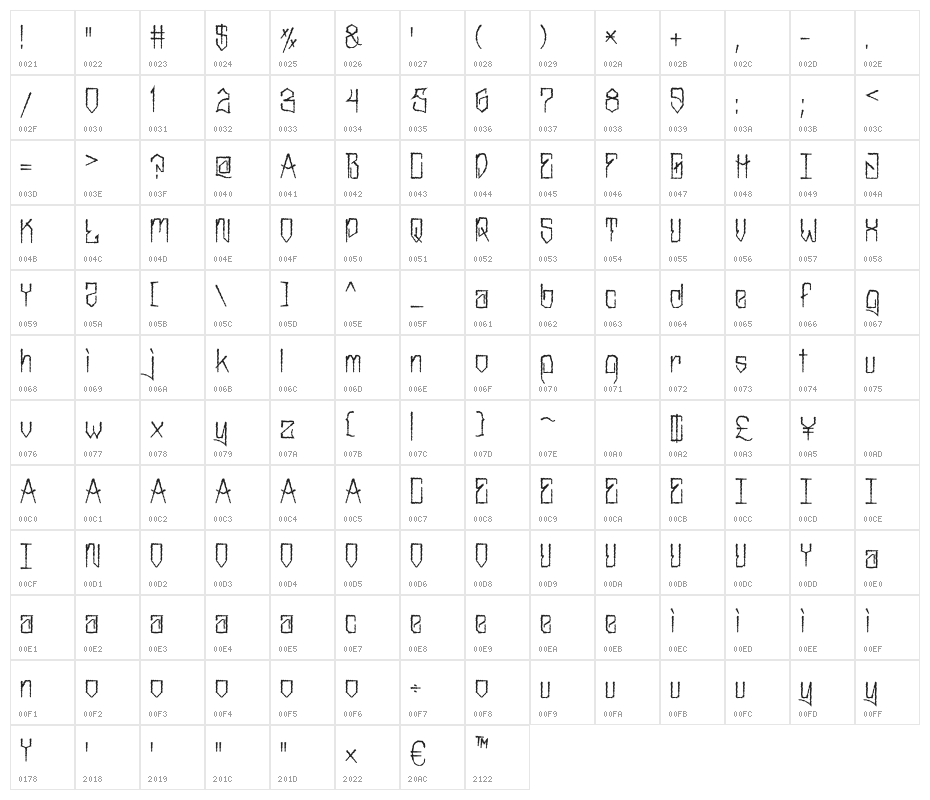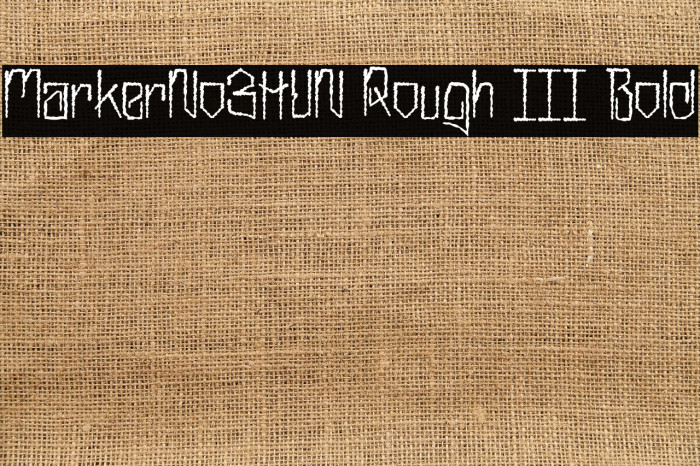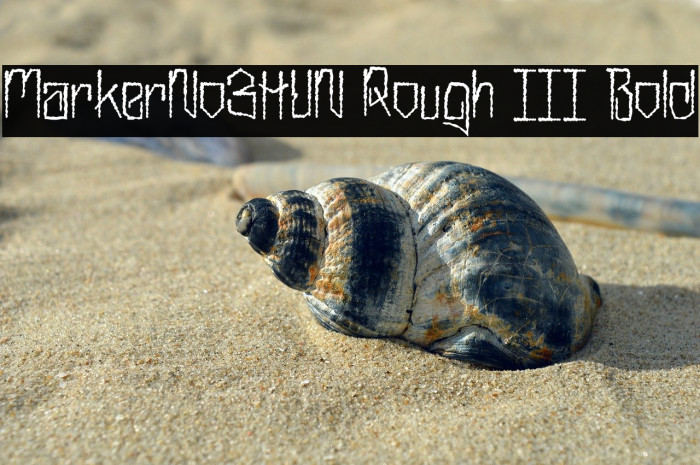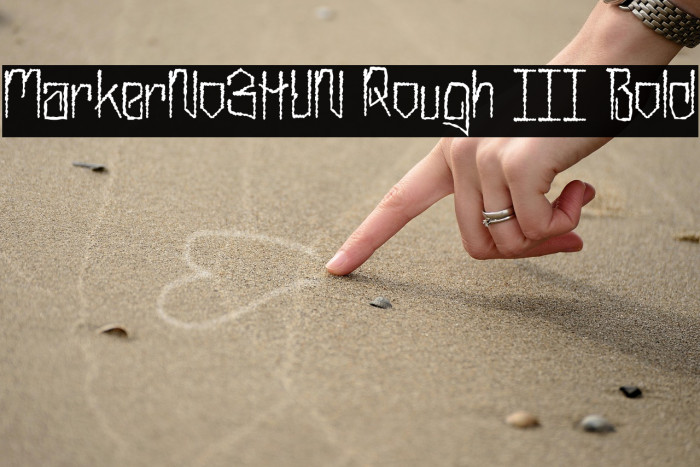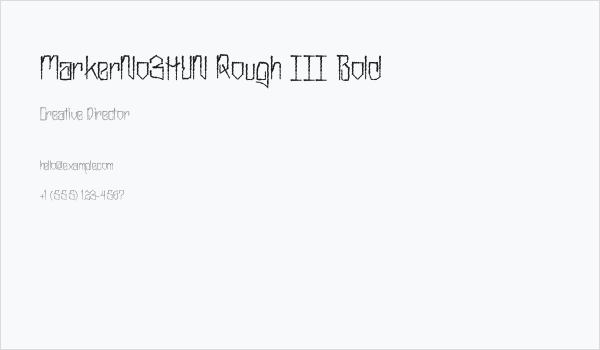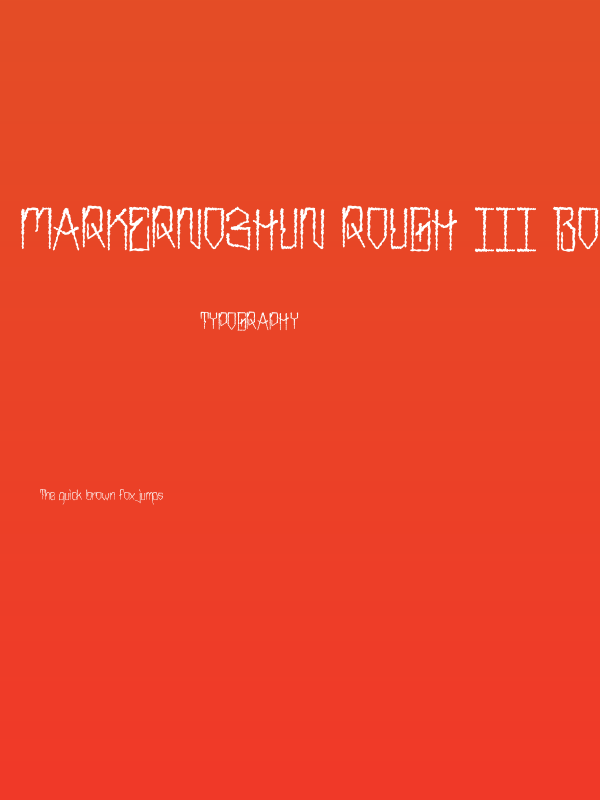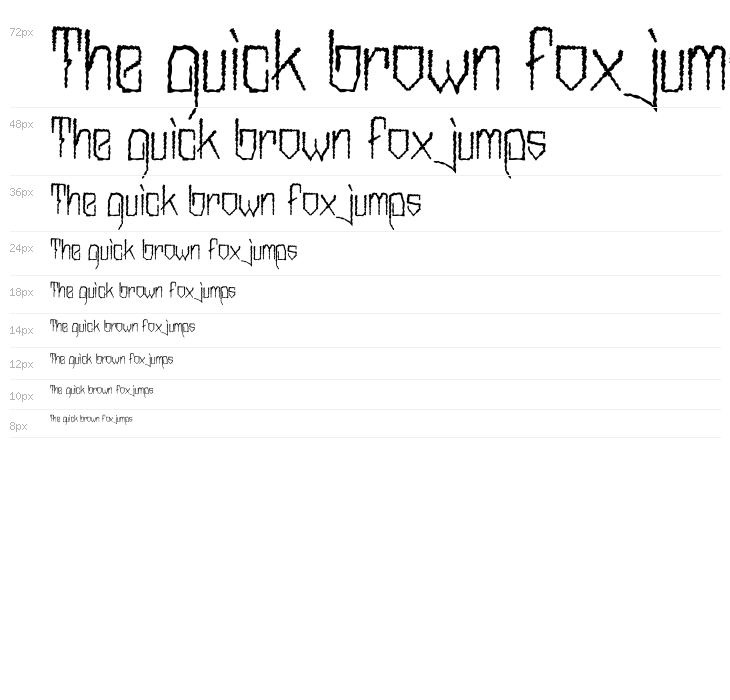
MarkerNo3HUN Rough III Bold Font
MarkerNo3HUN Rough III Bold Description
This font features a rugged, hand-drawn appearance with a bold and edgy style. The characters have a rough, textured outline that gives them a unique, organic feel. The uppercase and lowercase letters maintain a consistent height, while the numerals and special characters follow the same rough aesthetic. The font's irregular edges and bold strokes make it stand out, providing a sense of dynamism and creativity. It's ideal for projects that require a raw, artistic touch, such as posters, album covers, or any design that aims to convey a sense of rebellion or individuality.